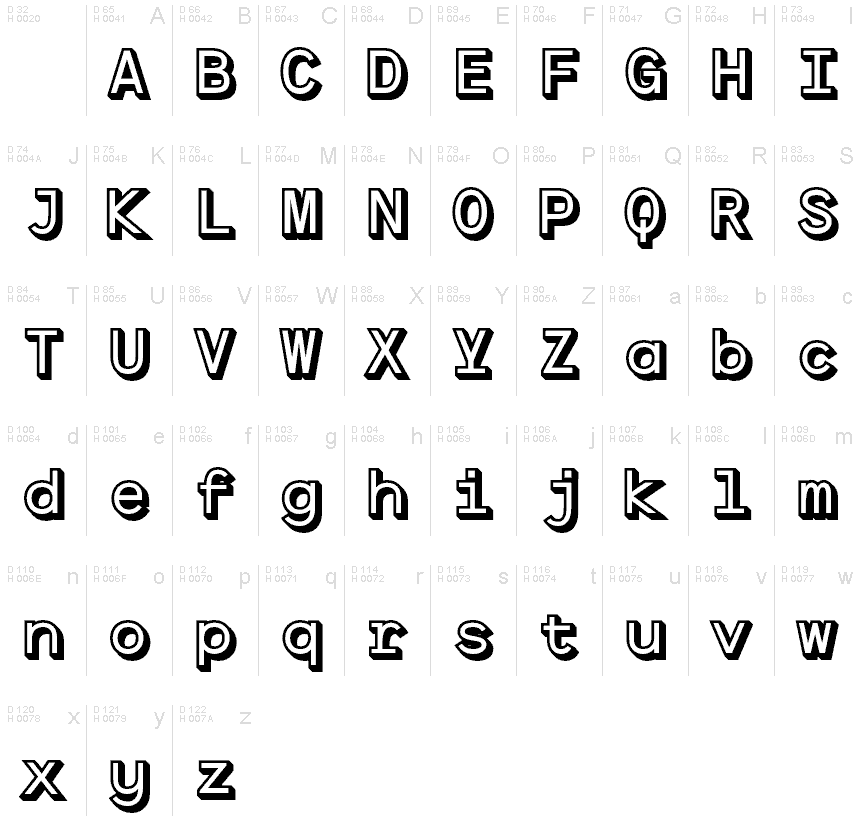
CSBarneyMono-ExtrudeRight Demo
CS Barney font by Craft Supply Co. is a modern display typeface that showcases a sense of geometric style with smooth edges. With stylish shadowed letters, the sans serif features an originality achieved through 3D effects and special typography alignment characteristics. It presents an abstract beauty characterized by bold straight lines, slanted angles, and perfectly vertical stems.
This free 3D font’s special effects evoke contemporary appeal and make it a great choice for posters, branding designs, magazine titles, stationery designs such as business cards and letterheads, social media graphics, flyers, music album covers, book covers or movie titles.